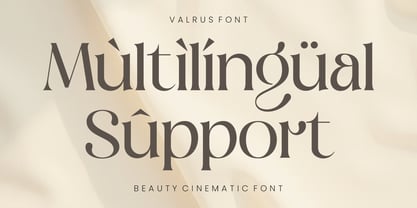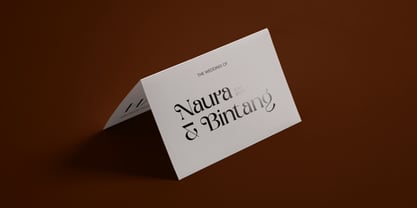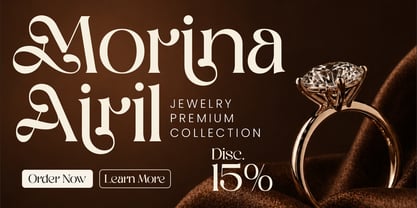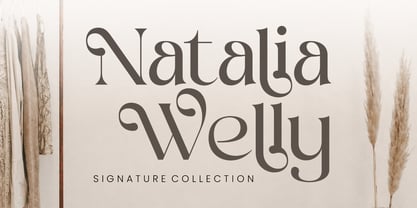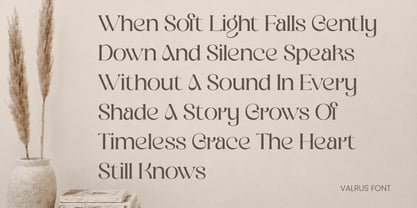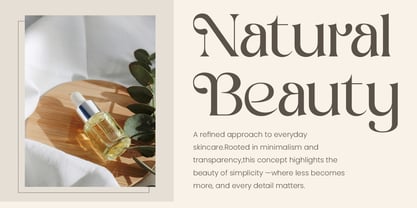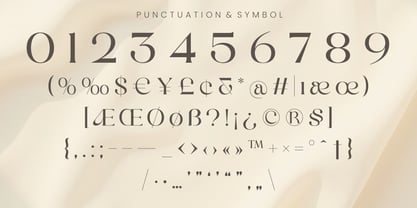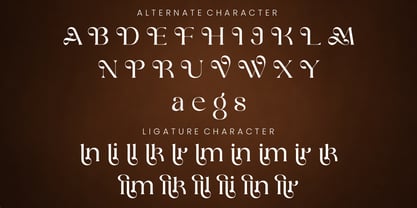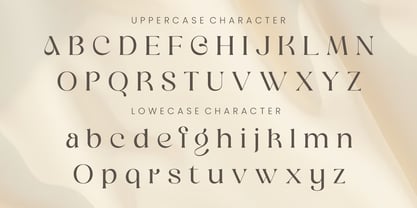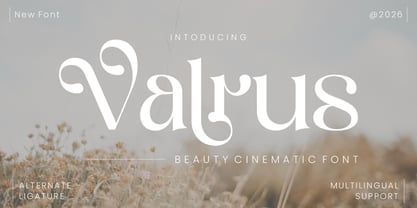
Valrus
by Bimaksara
The Valrus Font Family was designed by Nur Mokhamad Bismatulloh and published by Bimaksara. Valrus contains 1 styles. More about this family
Valrus - Beauty Cinematic Font
Valrus is a modern luxury beauty serif typeface designed to bring elegance, sophistication, and a timeless aesthetic to your visual projects. With refined letterforms and carefully crafted details, this font delivers a strong and distinctive presence for high-end branding.
Perfect for logos, fashion branding, editorial layouts, packaging, wedding designs, and social media content, Valrus combines classic serif structure with a contemporary touch.
Features:
• Uppercase & Lowercase
• Numbers & Punctuation
• Multilingual Support
• Stylistic Alternates
• Ligatures
• OpenType features for enhanced typography control
Every character is designed with precision to ensure balance, readability, and a unique visual identity.
Perfect for:
Luxury branding, logos, magazines, packaging, fashion projects, and elegant visual designs.
Create powerful and refined typography with Valrus
Designers: Nur Mokhamad Bismatulloh
Foundry: Bimaksara